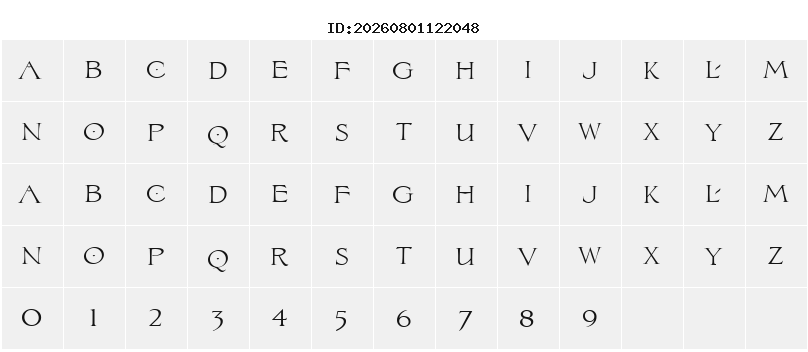
• Font Name: LHF Birgitta
• Full Font Name: LHF Birgitta
About LHF Birgitta.ttf
LHF Birgitta.ttf is a modern, elegant sans-serif font designed for ultimate readability and visual harmony. Perfect for branding, headlines, web design, and print materials.